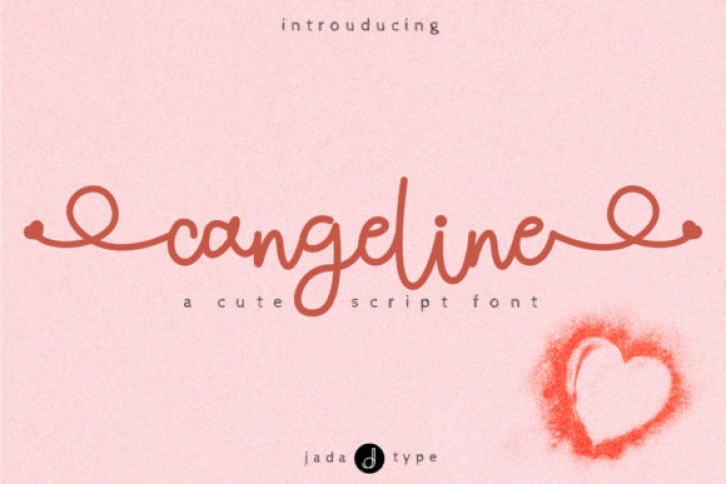
Cangeline is a minimal and lovely handwritten font. It will add an incredibly joyful touch to your designs. Add this beautiful display font to each of your creative ideas and notice how it makes them stand out!